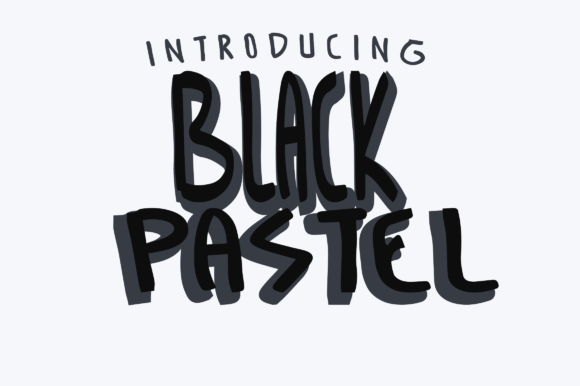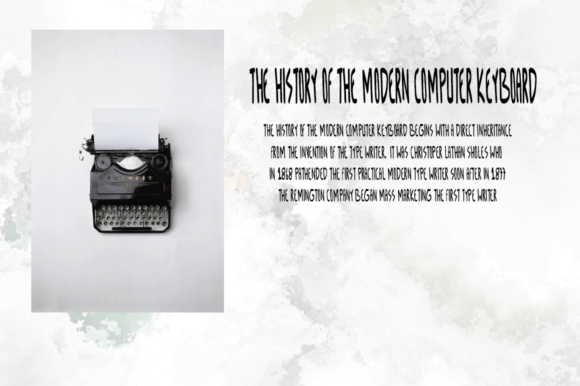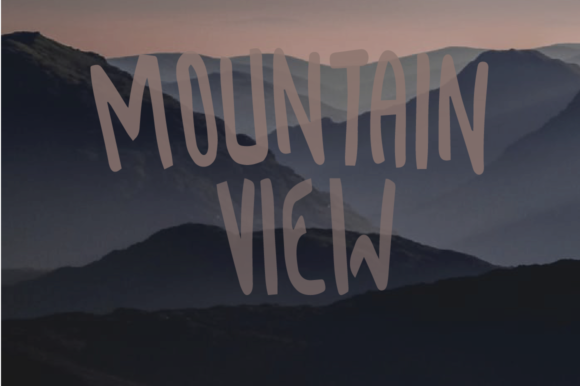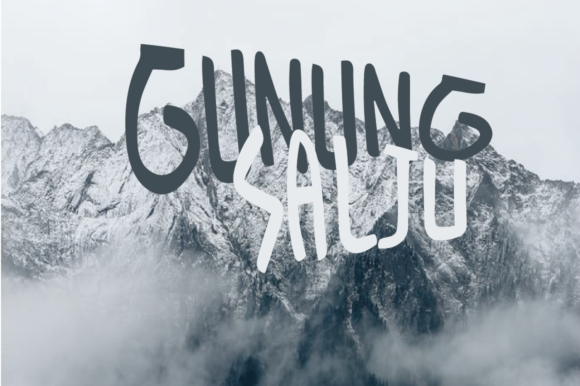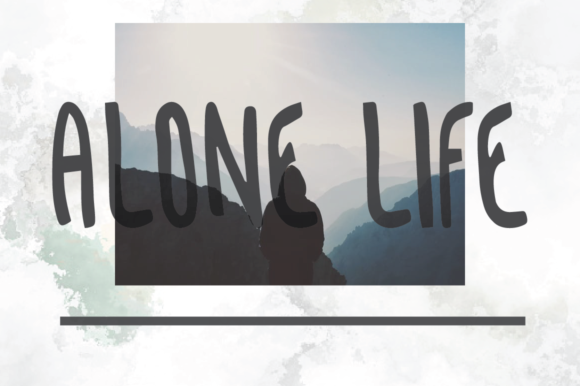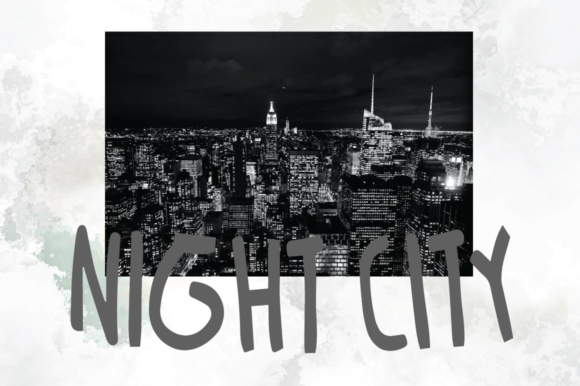
Introducing Black Pastel Font: Elevate Your Designs with a Touch of Elegance
In the world of design, typography plays a crucial role in conveying messages, evoking emotions, and creating lasting impressions. When it comes to selecting the perfect font for your creative projects, the options can be overwhelming. However, if you’re looking for a simple, minimalist, and display-worthy font that can elevate your designs, look no further than the Black Pastel Font. In this article, we’ll explore the features, benefits, and uses of Black Pastel Font, and why it’s a must-have for designers and crafters alike.
What is Black Pastel Font?
Black Pastel is a beautifully crafted display font that boasts a clean, minimalist aesthetic. Its simplicity makes it an incredibly versatile font, suitable for a wide range of applications, from product packaging and branding to banners, marketing materials, social media posts, and more. The font’s understated elegance ensures that it can complement any design style, making it an excellent addition to your typography arsenal.
Key Features of Black Pastel Font
- Simple and Minimalist: Black Pastel Font features a clean and uncluttered design, making it perfect for designs that require a subtle yet sophisticated touch.
- Display-Worthy: With its elegant and refined appearance, Black Pastel Font is ideal for use in headlines, titles, and other display text.
- Versatile: This font can be used across various platforms and mediums, including print, digital, and social media.
- Easy to Read: The clear and legible design of Black Pastel Font ensures that your message is conveyed effectively, without compromising on style.
Benefits of Using Black Pastel Font
So, why should you choose Black Pastel Font for your designs? Here are just a few benefits:
- Enhance Your Brand’s Visual Identity: With Black Pastel Font, you can create a cohesive and professional visual identity for your brand, setting you apart from the competition.
- Elevate Your Designs: This font adds a touch of sophistication and elegance to any design, making it perfect for creative projects that require a high level of refinement.
- Save Time: Black Pastel Font is easy to use and works seamlessly across various design platforms, saving you time and effort.
Uses of Black Pastel Font
The versatility of Black Pastel Font makes it suitable for a wide range of applications, including:
- Product Packaging: Create eye-catching packaging designs that showcase your brand’s personality and style.
- Branding: Establish a strong visual identity for your brand with Black Pastel Font, perfect for logos, business cards, and more.
- Banners and Posters: Make a statement with bold and elegant banners and posters that feature Black Pastel Font.
- Marketing Materials: Elevate your marketing materials, such as brochures, flyers, and catalogs, with this sophisticated font.
- Social Media Posts: Add a touch of refinement to your social media posts and stand out in a crowded online landscape.
Tips for Using Black Pastel Font
To get the most out of Black Pastel Font, here are a few tips to keep in mind:
- Experiment with Sizes: Play around with different font sizes to create visual hierarchy and emphasize key messages.
- Pair with Other Fonts: Combine Black Pastel Font with other fonts to create a unique and visually appealing typography combination.
- Use on Contrasting Backgrounds: Ensure that your text stands out by using Black Pastel Font on contrasting backgrounds.
In conclusion, Black Pastel Font is a simple yet elegant display font that can elevate your designs and take your typography to the next level. With its minimalist aesthetic, versatility, and ease of use, it’s an excellent addition to any designer’s toolkit. Whether you’re working on product packaging, branding, banners, marketing materials, or social media posts, Black Pastel Font is sure to make a lasting impression.